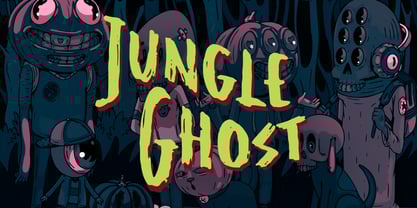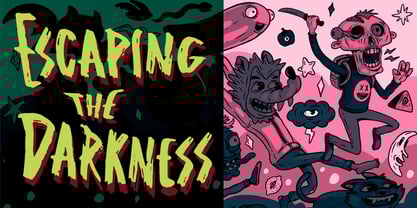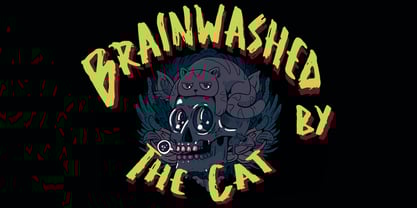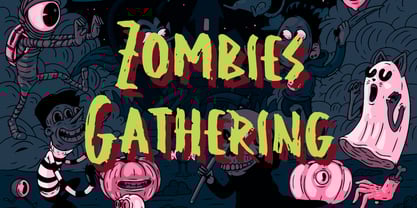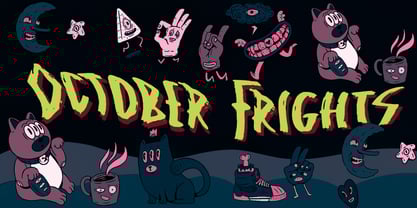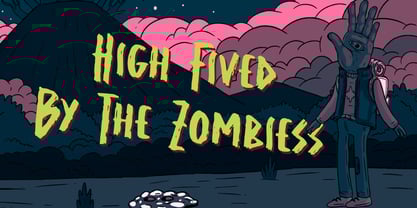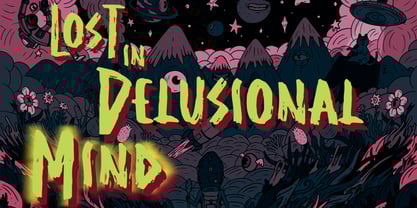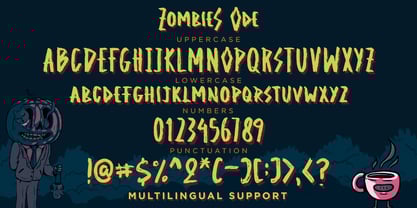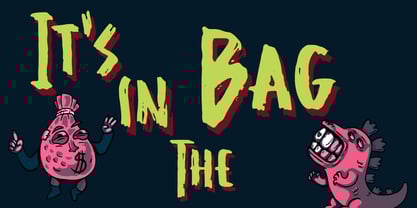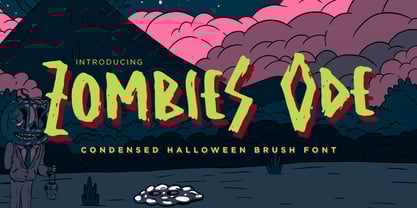
Zombies Ode
by DM Studio
The Zombies Ode Font Family was designed by Dimas Prasetyo and published by DM Studio. Zombies Ode contains 1 styles.
Introducing Zombies Ode, a spine-chilling condensed brush font with the perfect dose of creepy and quirky. This Halloween-inspired typeface drips with personality—literally! With hand-drawn brush strokes, uneven edges, and a gooey style, Zombies Ode brings a spooky but playful vibe to your designs.
Ideal for Halloween posters, horror-themed party invites, trick-or-treat labels, haunted house flyers, and creepy merchandise, this font is sure to raise the dead—and your creativity!
• Uppercase characters
• Numbers & punctuation
• Grungy brush texture for an authentic horror look
• Perfect for Halloween, horror, zombie, monster, and spooky designs
Whether you're crafting a creepy story cover or designing a haunted escape room sign, Zombies Ode will help your message scream for attention.